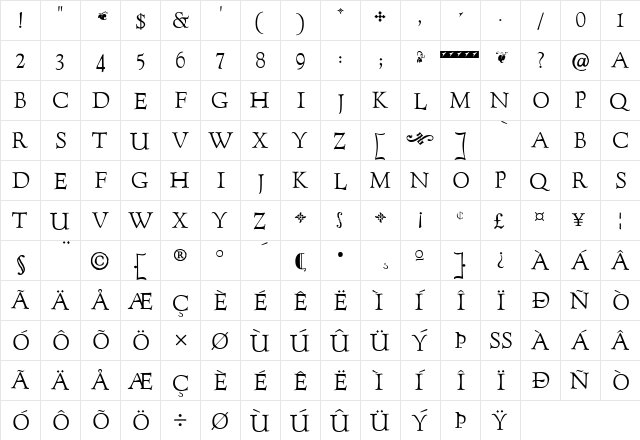
GoudyTwenty Regular
| Copyright | Copyright (c) John Nolan. All rights reserved. Goudy Twenty is based on Forum Title, which is number 20 in "Goudy's Type Designs" from Myriade Press. It is an all caps font. A few of the type ornaments shown in "Goudy's Type Designs", |
Design Context for GoudyTwenty Typeface
GoudyTwenty offers clean, dependable letterforms without strong stylistic allegiance, making it a practical choice for designers who need flexibility.